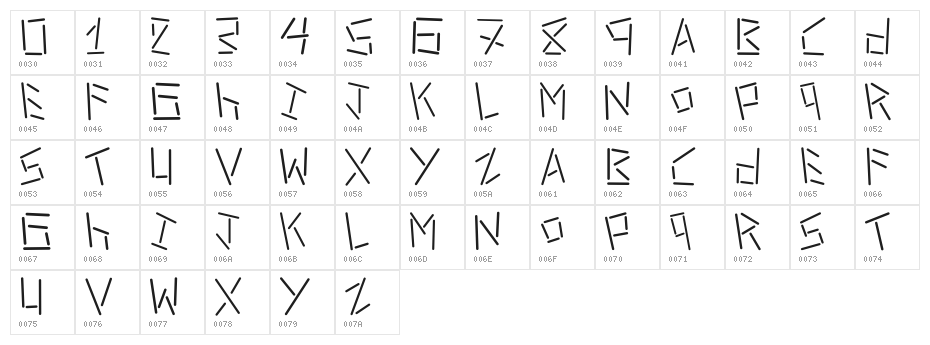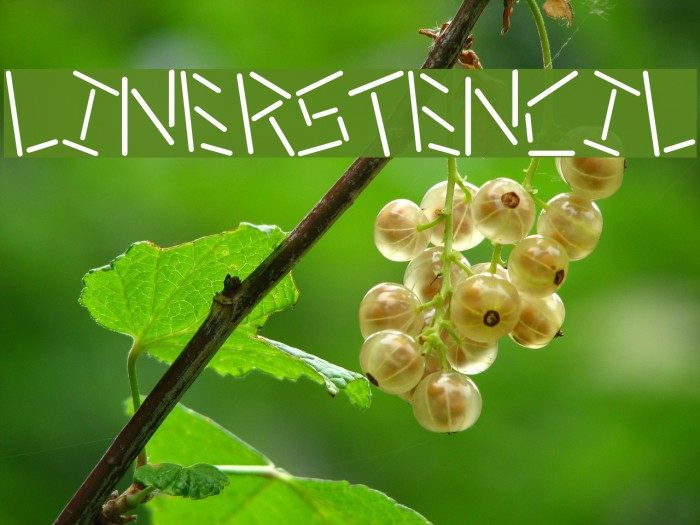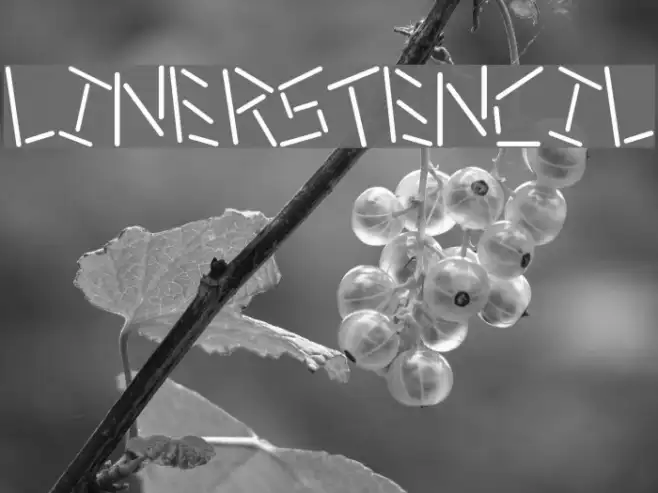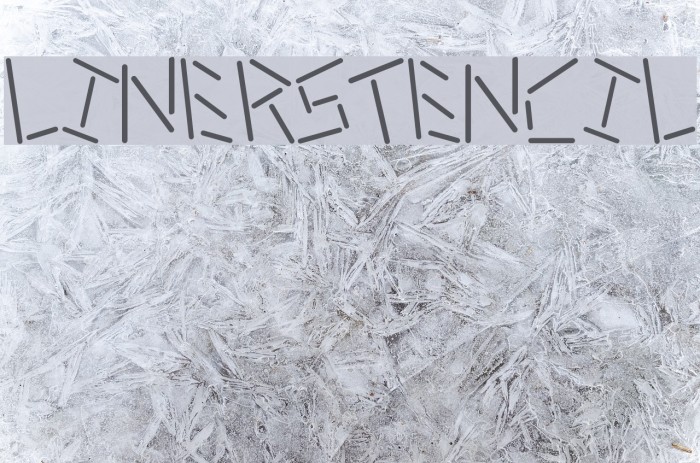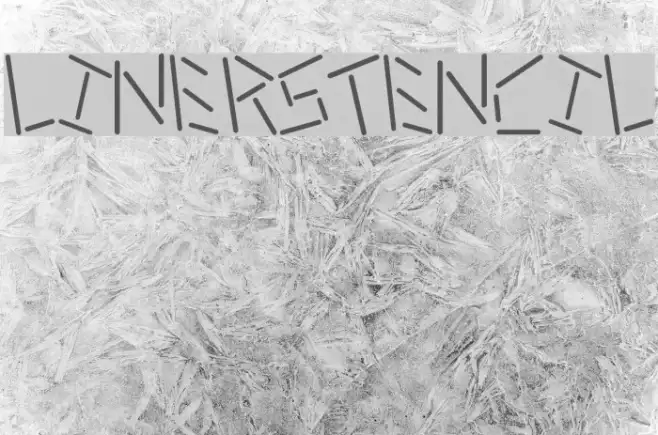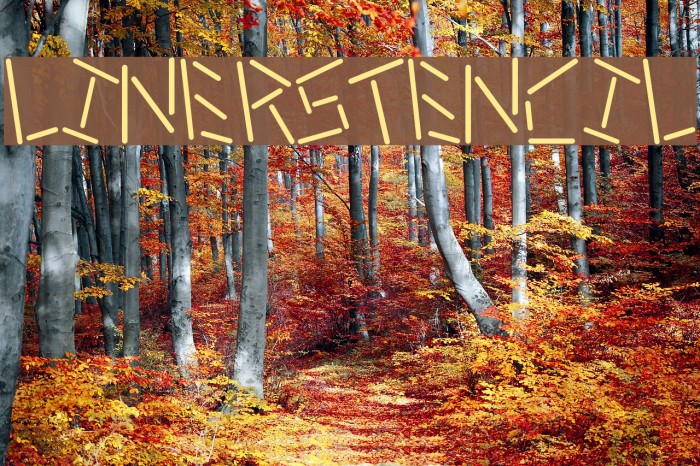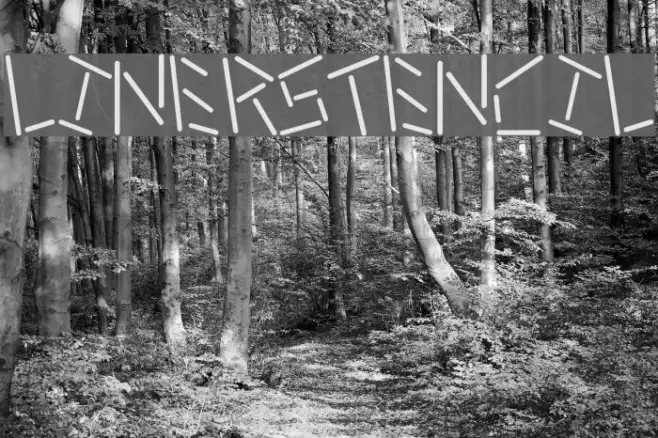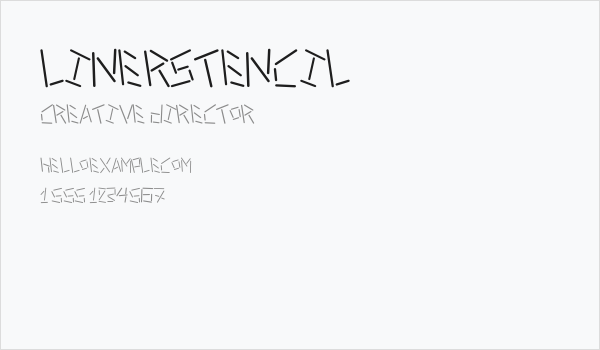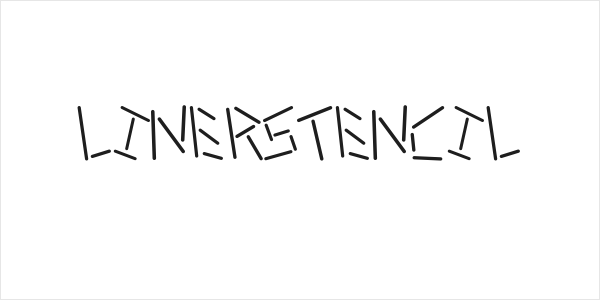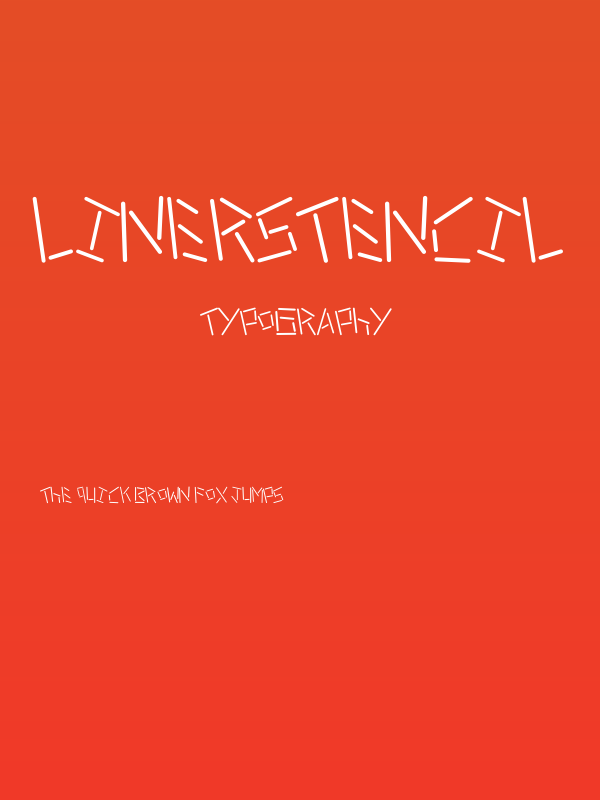
linerstencil Font
linerstencil Description
This font features a unique stencil design with a modern twist. Each character is composed of distinct, separate lines that create a fragmented yet cohesive appearance. The geometric nature of the font gives it a structured and industrial feel, reminiscent of architectural blueprints or technical drawings. The uppercase and lowercase letters maintain a consistent style, with angular cuts and sharp edges that enhance its futuristic aesthetic. Numbers and special characters follow the same design principles, ensuring uniformity across all glyphs. This font is ideal for projects that require a bold, eye-catching typeface with a contemporary edge.
| Proposed Projects | Ideal for branding, posters, signage, and any project needing a modern, industrial touch. |